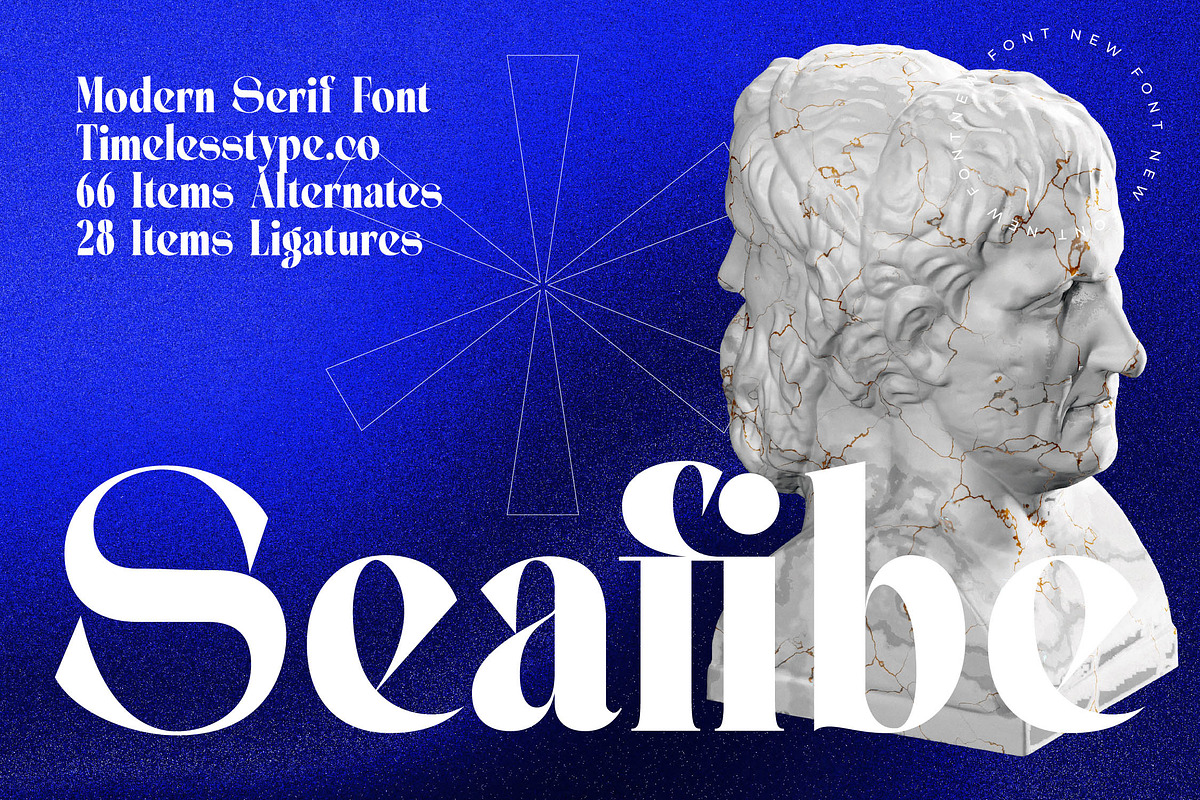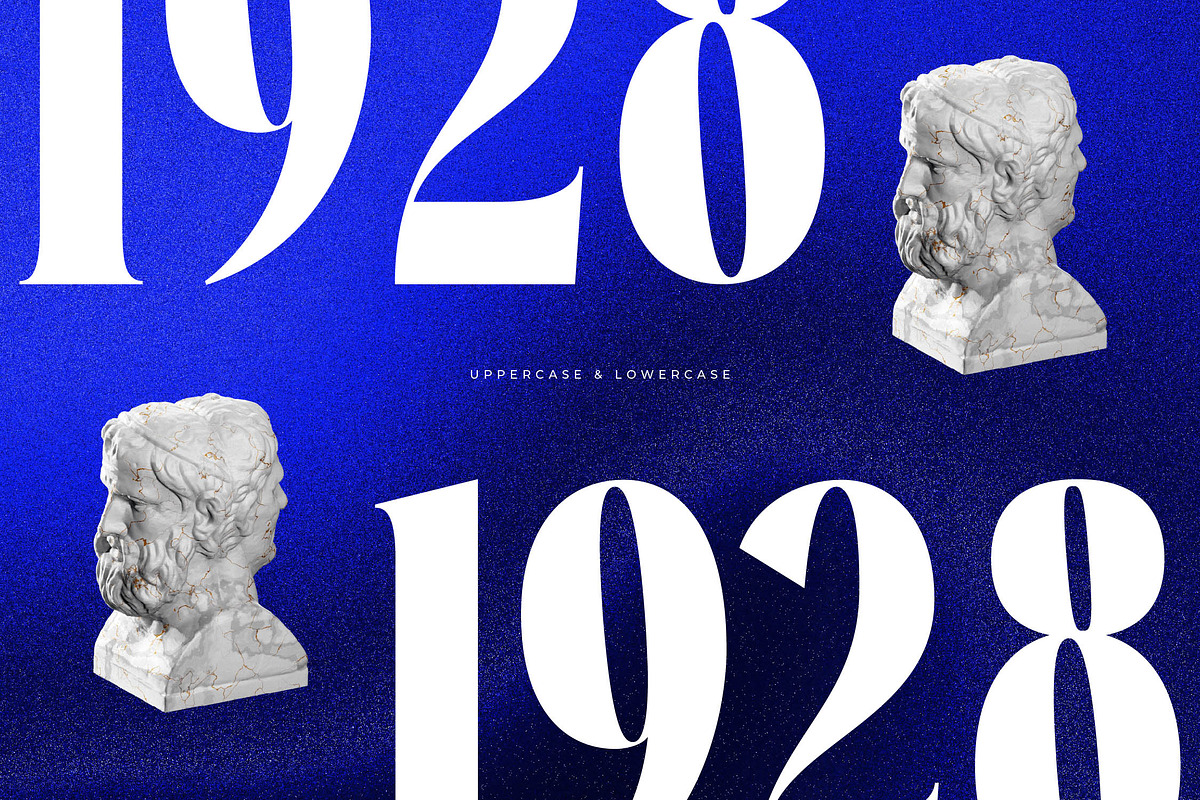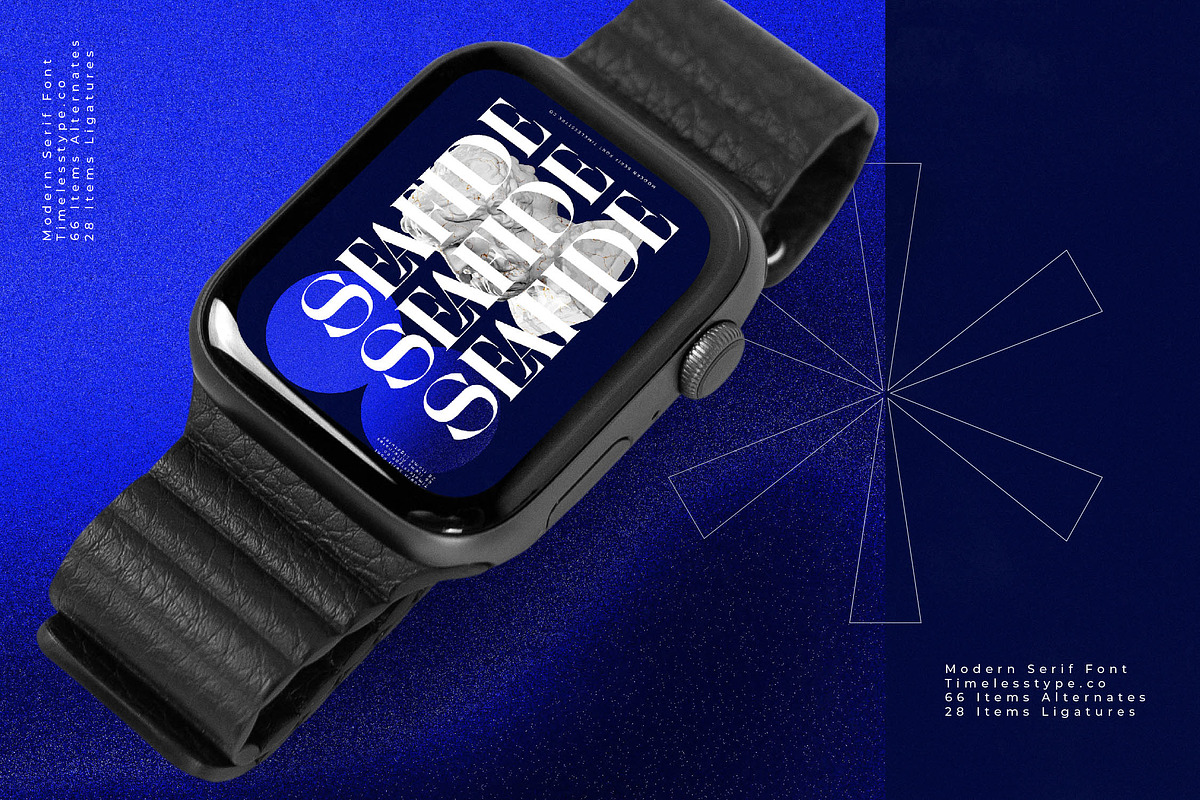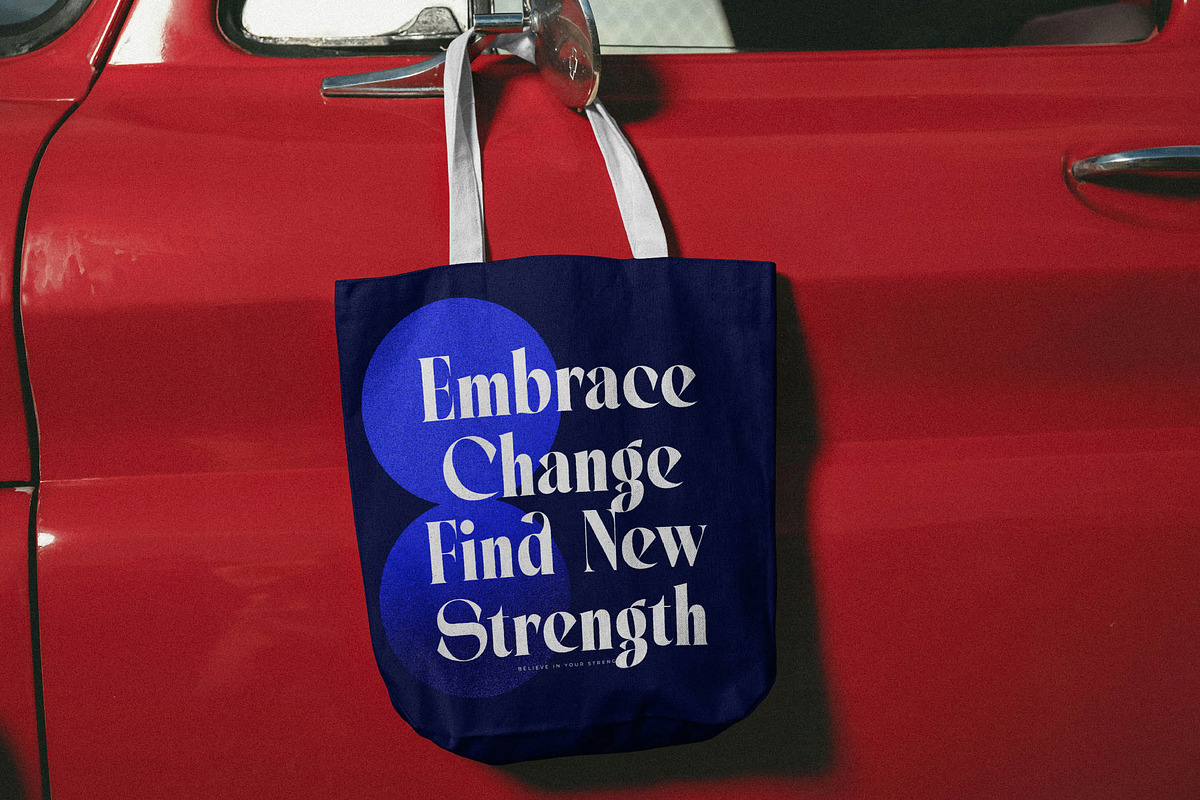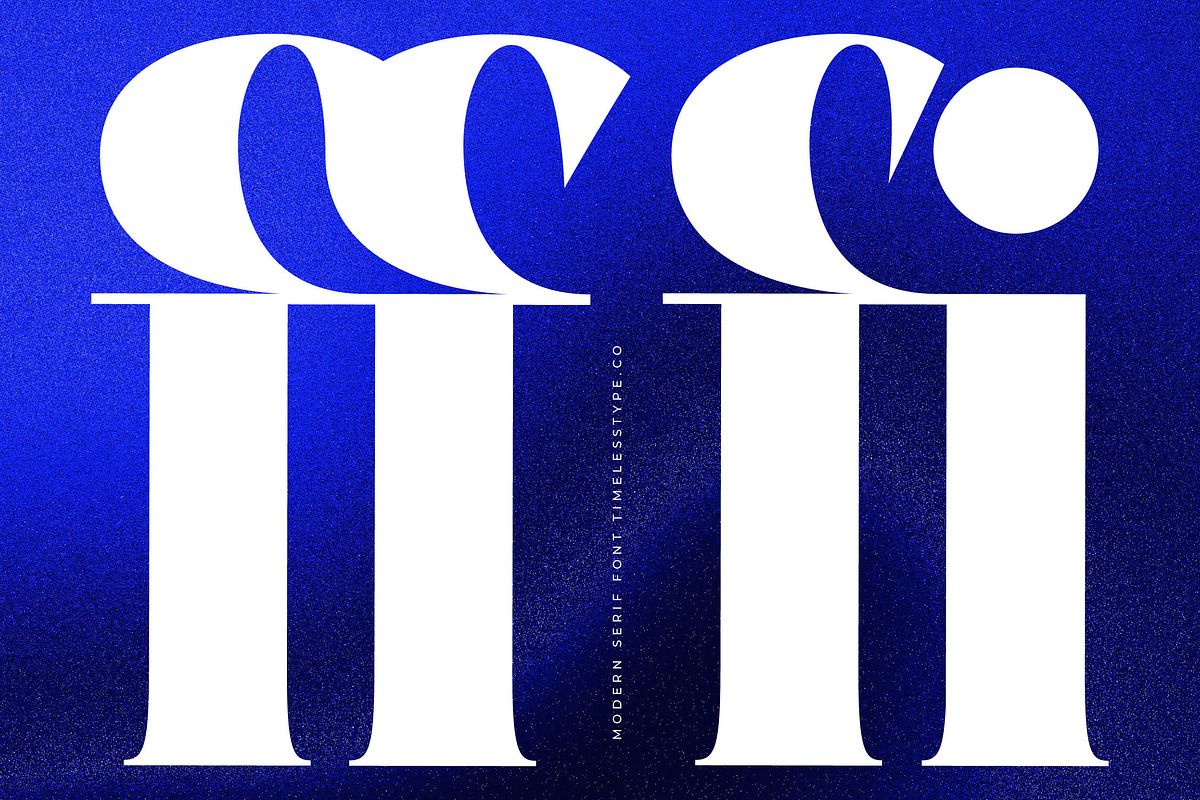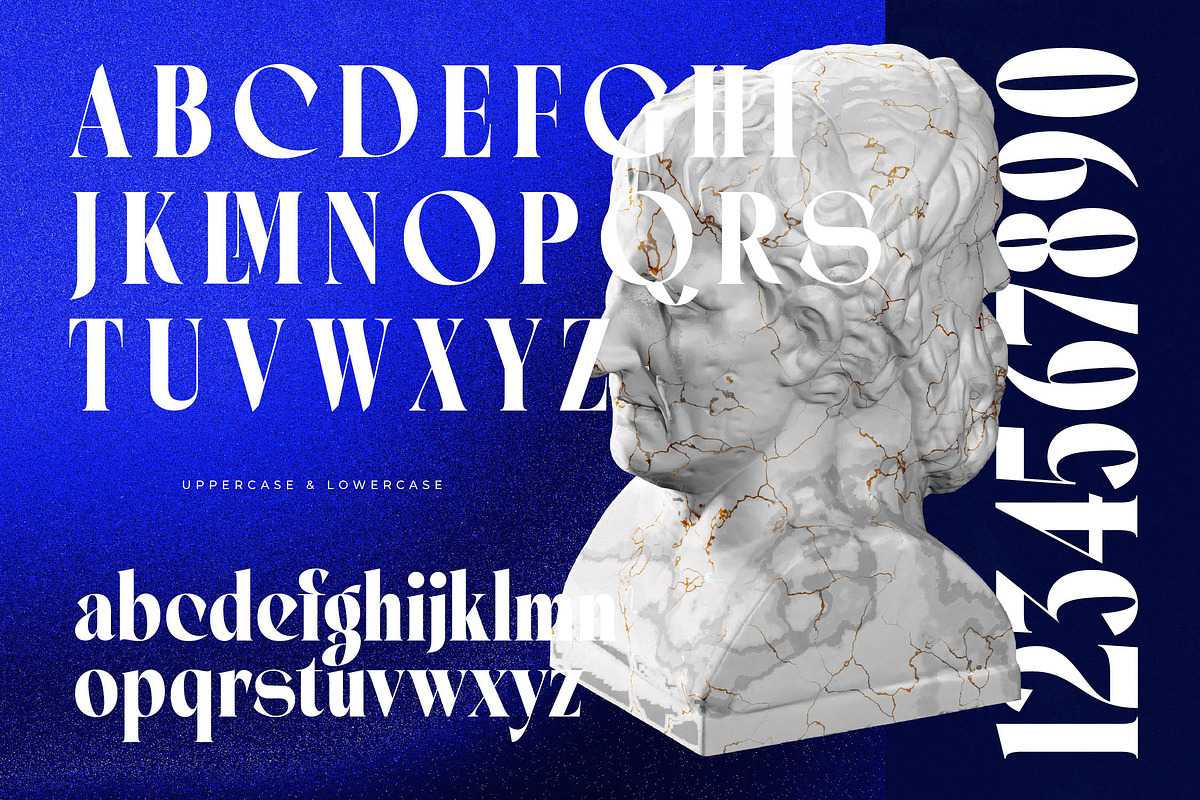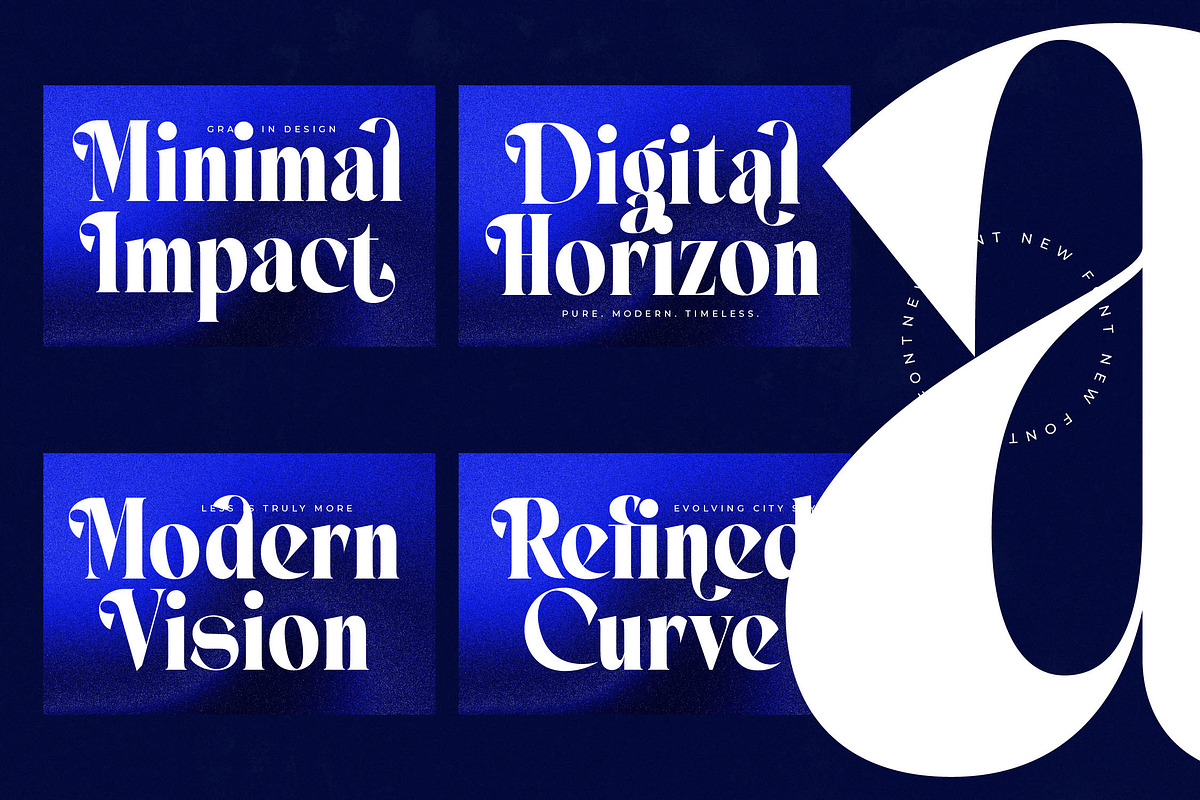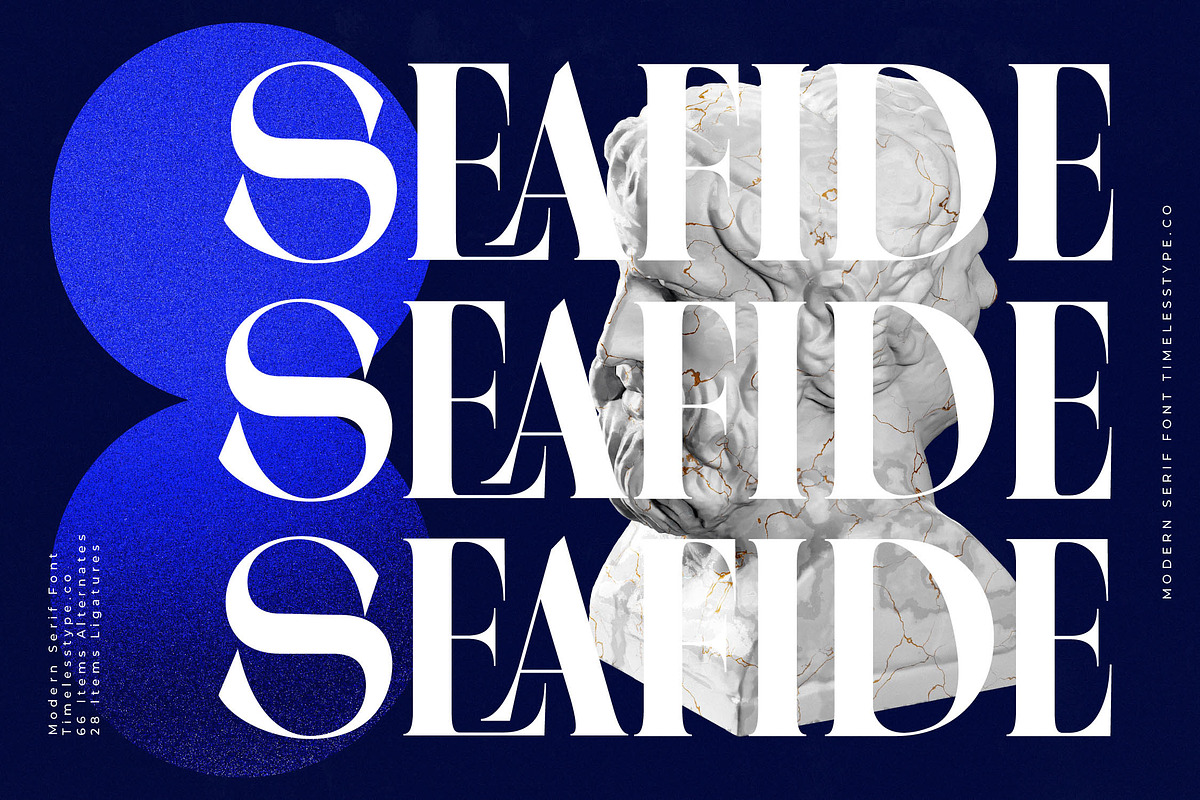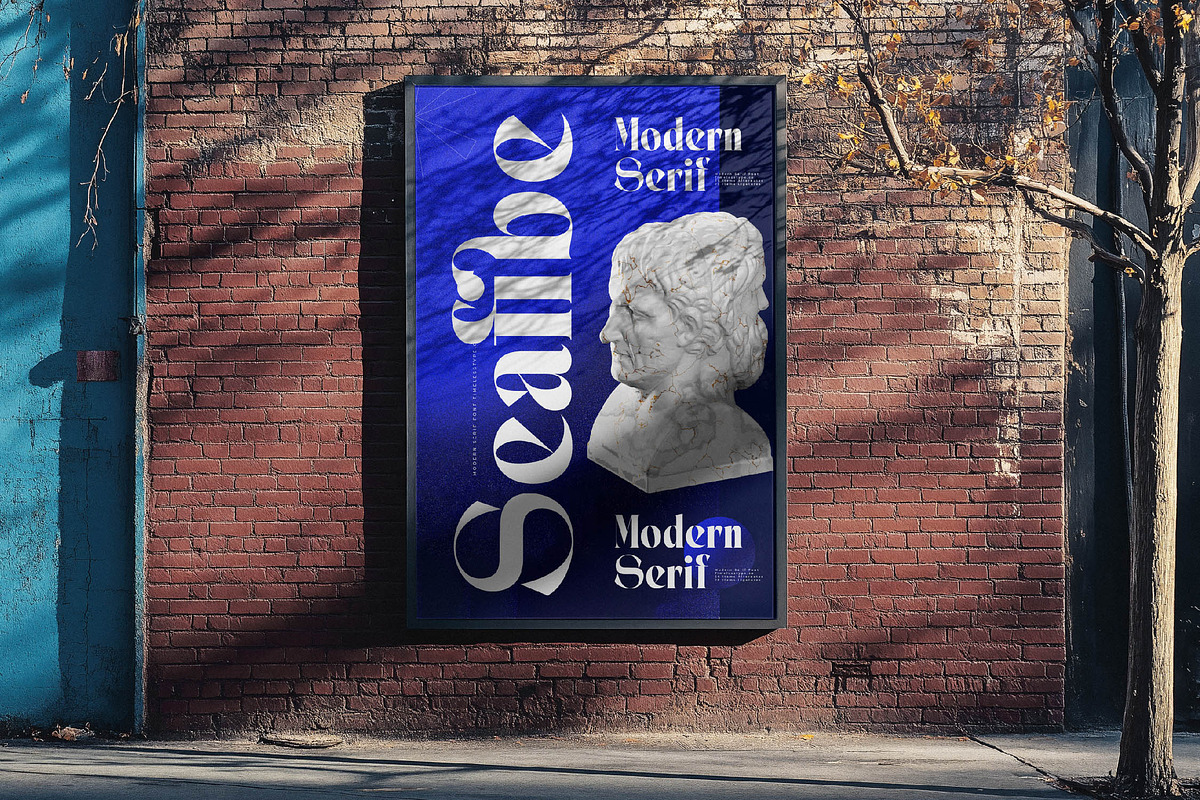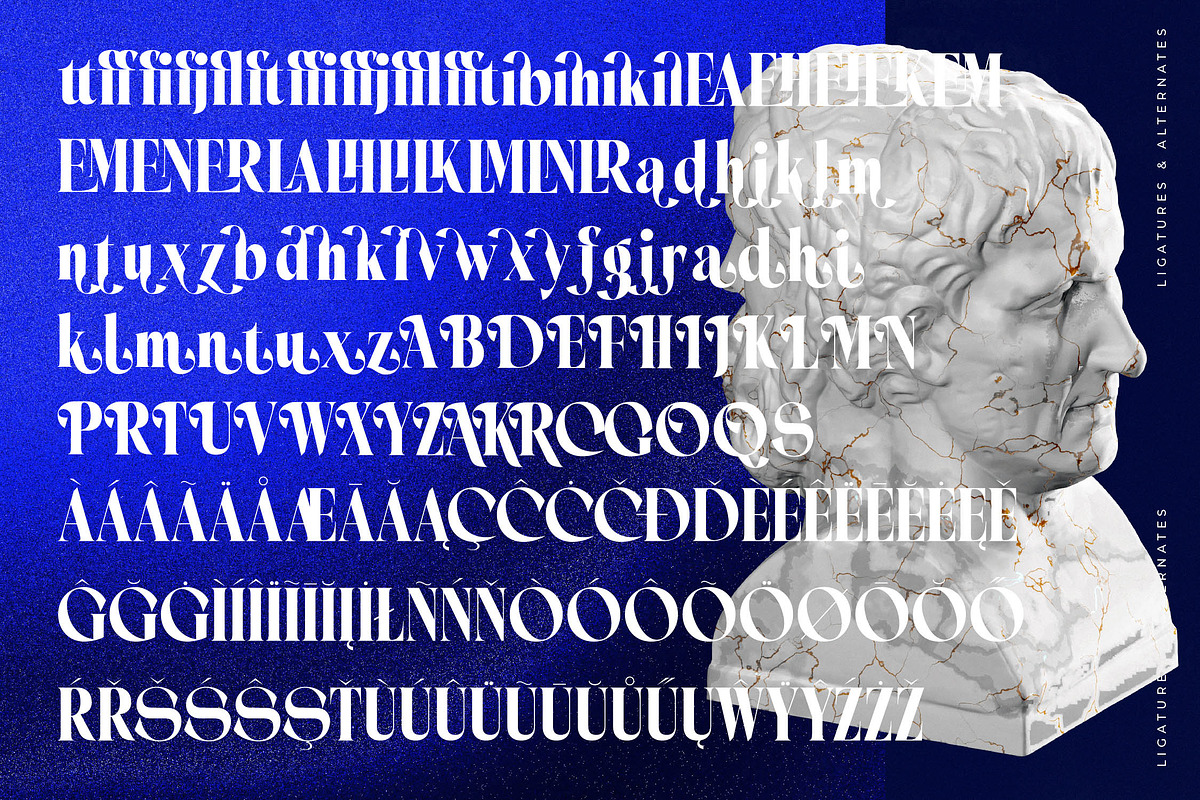
Seafibe Modern Serif Display
Unleash a world of sophisticated elegance with Seafibe, a font that redefines the boundaries of contemporary grace. This typeface is more than just letters; it is a visual symphony designed to leave an indelible mark on every creative canvas it touches.
Drawing inspiration from the timeless beauty of classical sculpture and the bold sharpness of modern minimalism, the design bridges the gap between eras. It captures the essence of a serene ocean breeze meeting the structured discipline of architectural marble.
This modern serif display is defined by its striking high-contrast strokes and fluid, organic curves that radiate a sense of luxury typography. It serves as a powerful tool for creators seeking a high-contrast serif that maintains an editorial font quality while delivering a significant branding impact.
As the modern serif trend continues to dominate high-end visual identities, this typeface stands at the forefront of editorial display fonts. It perfectly aligns with the current shift toward character-driven typography that prioritizes unique flair and individualistic expression in a crowded digital landscape.
Designers will find it indispensable for logo design and comprehensive branding projects that require a touch of class. From high-fashion editorial layouts and luxury packaging to romantic wedding stationery and fashion magazine spreads, it elevates every medium it inhabits.
Beyond its stunning aesthetics, the package includes an extensive collection of 66 alternates and 28 ligatures to provide endless customization options. It also features a full suite of multilingual support and international characters, ensuring your message resonates globally without losing its swashes and artistic integrity.
- Ligature 28 Alternate 66